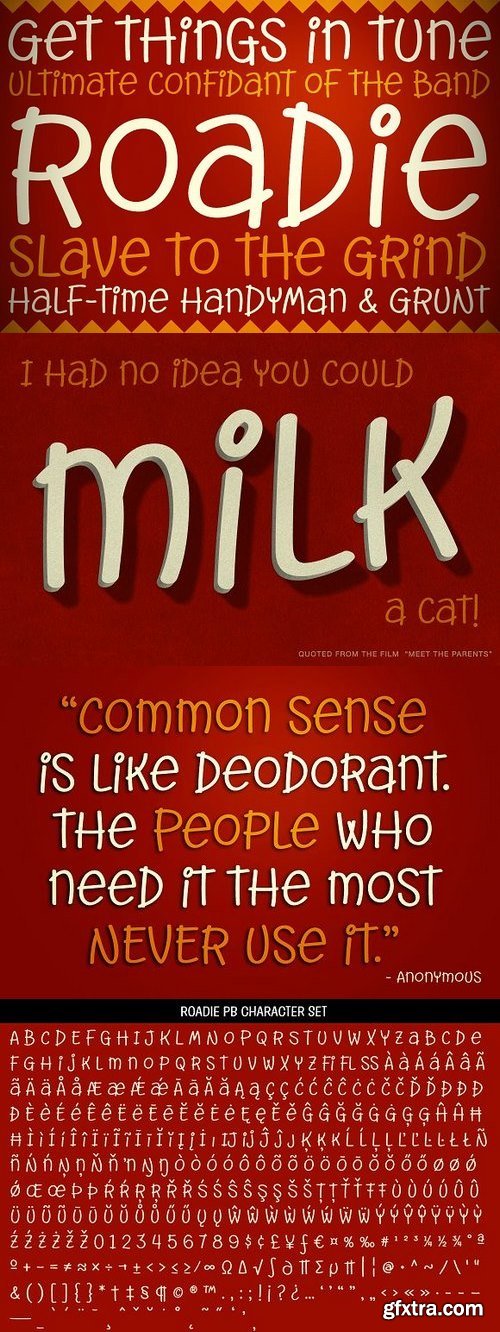
Roadie was inspired by a 1981 Hallmark card with lettering that was full of frolicking fun. Filled with a childish persona and a playful bounce, this Roadie has a lot to offer. As with some of my previous type designs, it is a typographic dance, wonderfully skipping across designs, surprising with each letter typed. With an extensive character set, and clean sharpie marker-like look, Roadie is a joy to typeset with, and it comes with a stylistic alternates feature that shuffles the Capitals and lowercase that share similar unicase forms that add to the quirky playfulness.
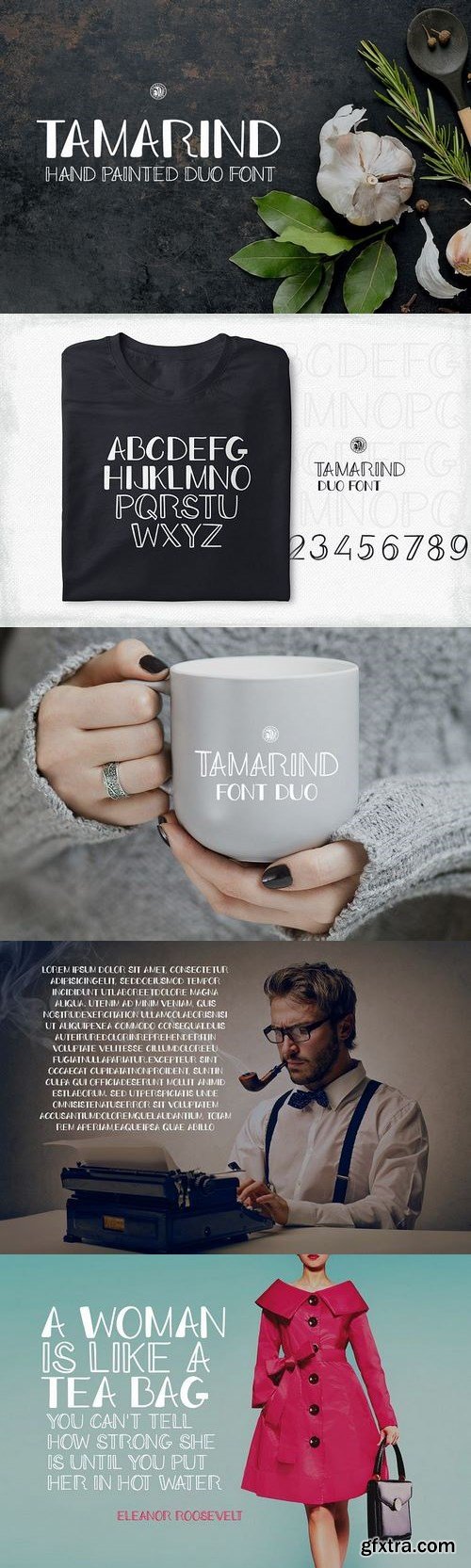
Tamarind font duo - hand lettering font. Ideal for invitations, logos, branding, blogs, handmade craft items, scrap booking, printed paper items and more.
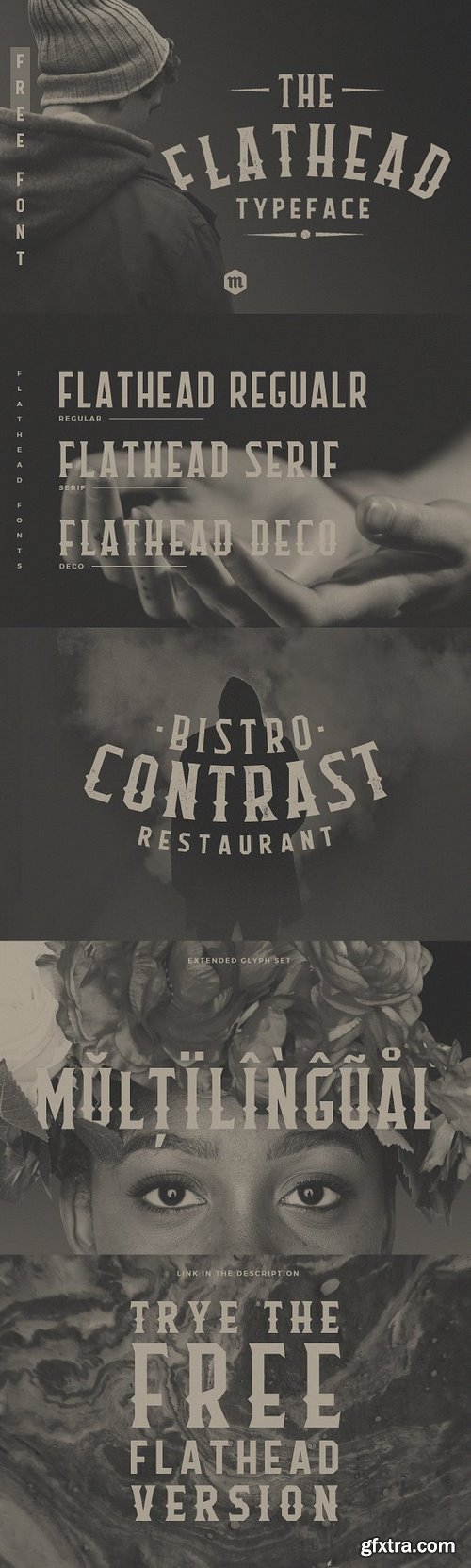
Flathead is a 3 font family with a mono weight and different decorations. Inspired by american western culture and tattoos, is perfect to use in vintage-themed designs. Flathead is suitable for any project that requires an old western feel as the core design elements; such as logo, wedding invitation, greeting card, poster, etc.
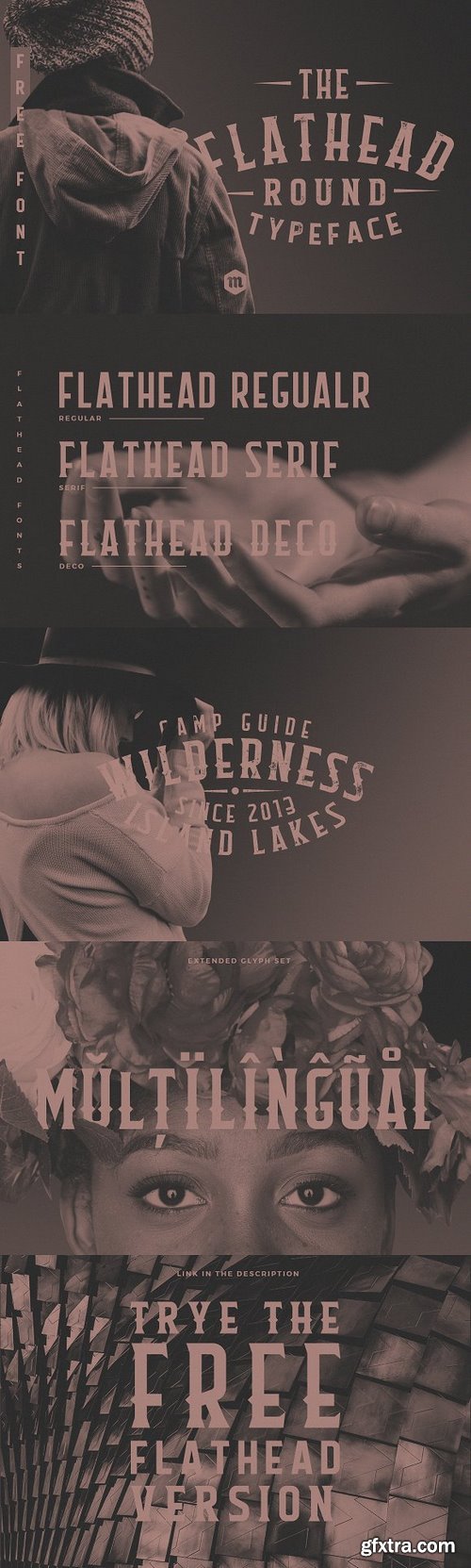
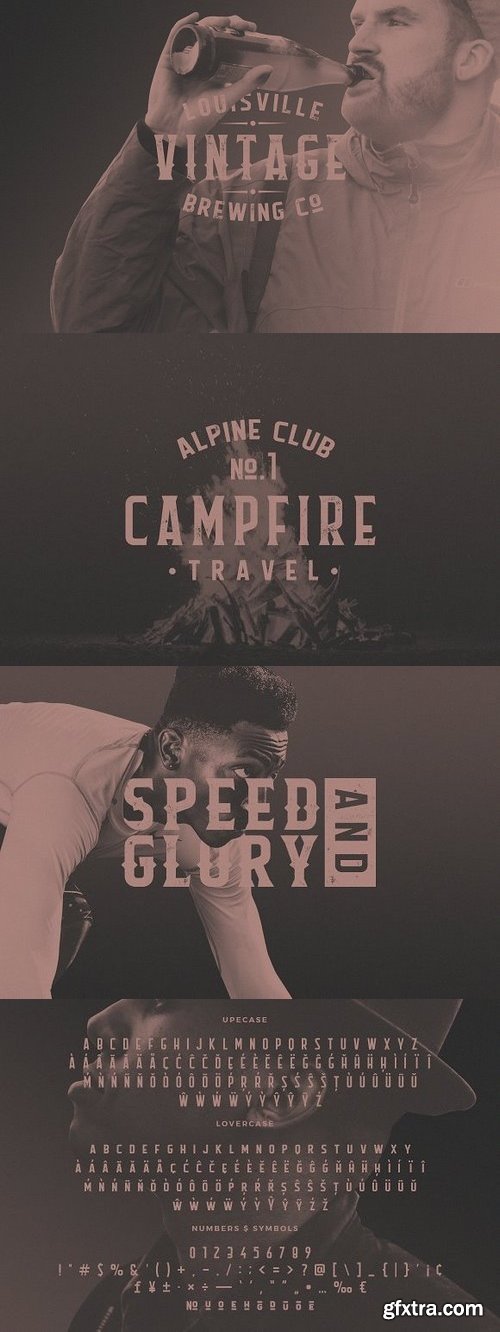
Flathead Round is a 3 font family with a mono weight and different decorations. Inspired by american western culture and tattoos, is perfect to use in vintage-themed designs. Flathead is suitable for any project that requires an old western feel as the core design elements; such as logo, wedding invitation, greeting card, poster, etc.
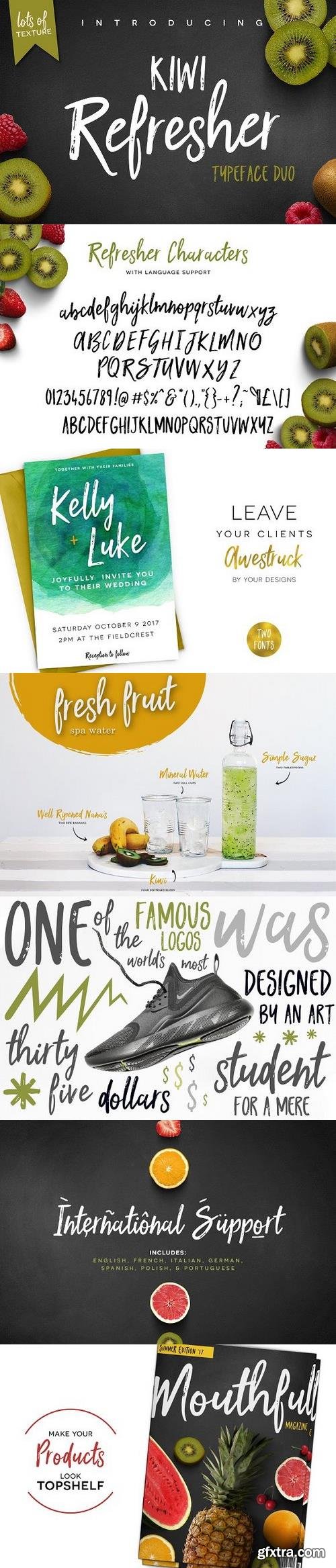
ABOUT KIWI REFRESHER FONT DUO Kiwi Refresher is a fun loving font duo that couples an off-the-cuff script with an all-caps sans serif! It's marker brush strokes give it a gritty and eye popping aesthetic perfect for prints, greeting cards, typography quotes, branding, and more! Use it in ink, watercolor, or gold foil based designs or all on its own! Handcrafted fonts have become all the rage. Pick up this Font Duo package and get ready to take over the design world by storm!
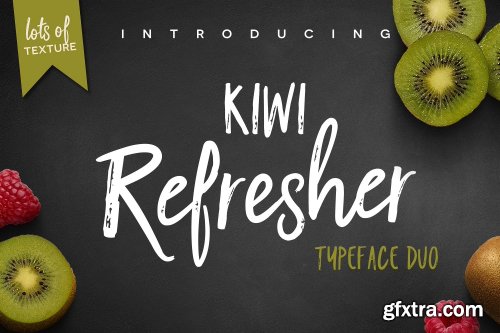
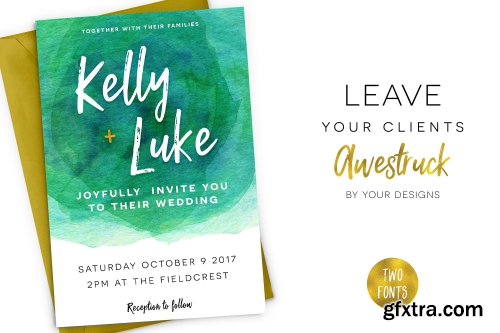
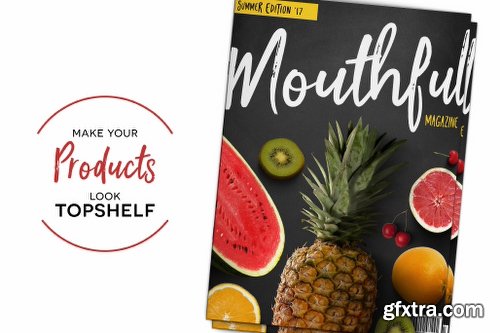
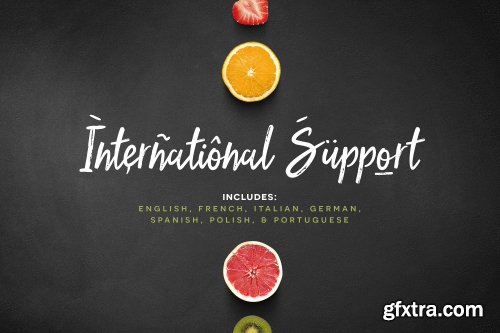
ABOUT KIWI REFRESHER FONT DUO
Kiwi Refresher is a fun loving font duo that couples an off-the-cuff script with an all-caps sans serif! It's marker brush strokes give it a gritty and eye popping aesthetic perfect for prints, greeting cards, typography quotes, branding, and more!
Use it in ink, watercolor, or gold foil based designs or all on its own! Handcrafted fonts have become all the rage. Pick up this Font Duo package and get ready to take over the design world by storm!
INCLUDES :
Wanting to make sure you had everything you needed to make your project complete with that handcrafted feel, I’ve included:
1) Kiwi Refresher Script (OTF, TTF, WOFF)
3) Over 100 Bonus Glyphs including International Language Support (English, French, Spanish, German, Polish, Italian, Portuguese), and some other fun ligatures